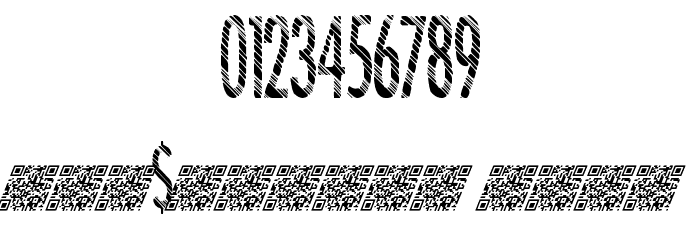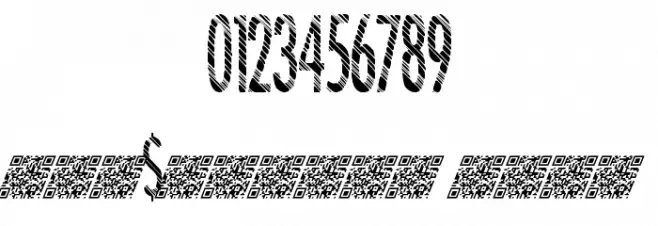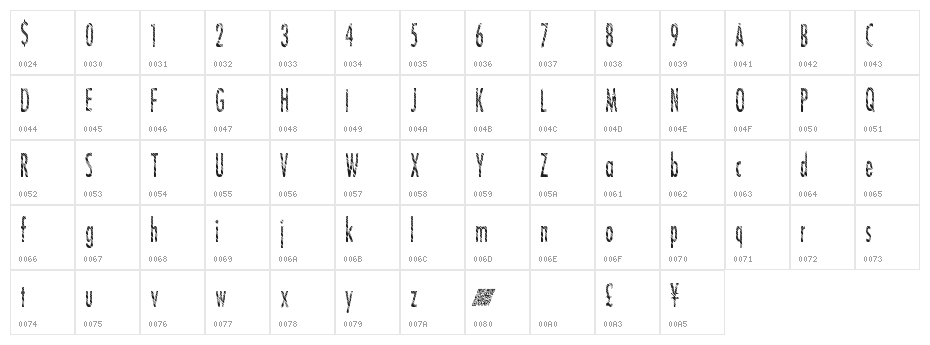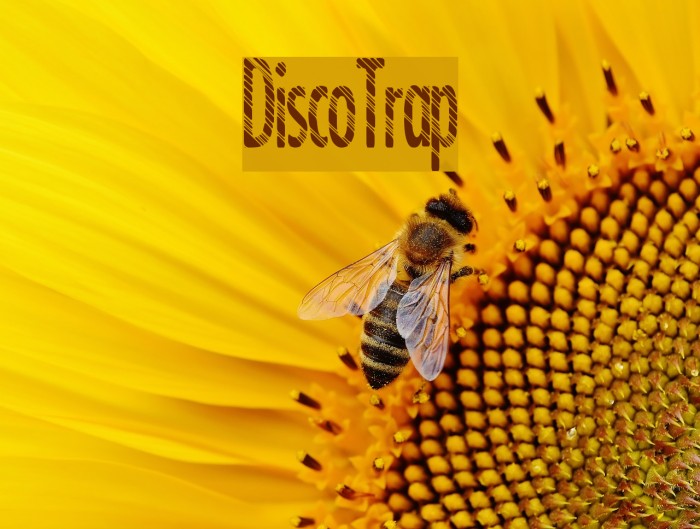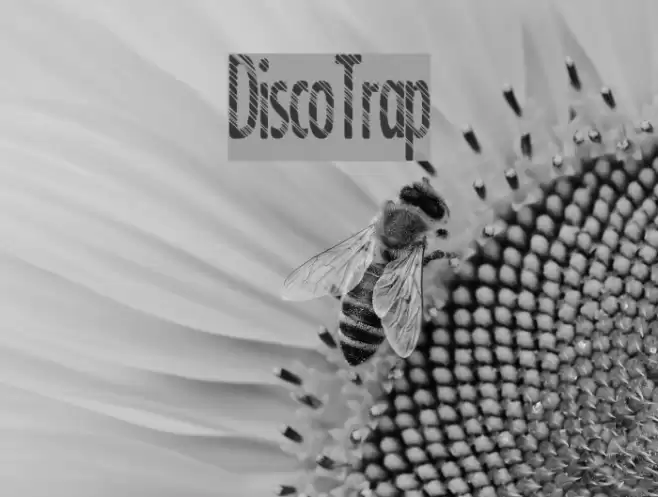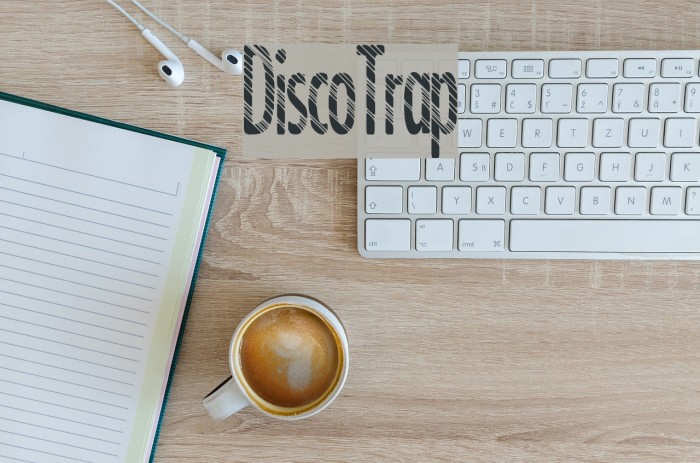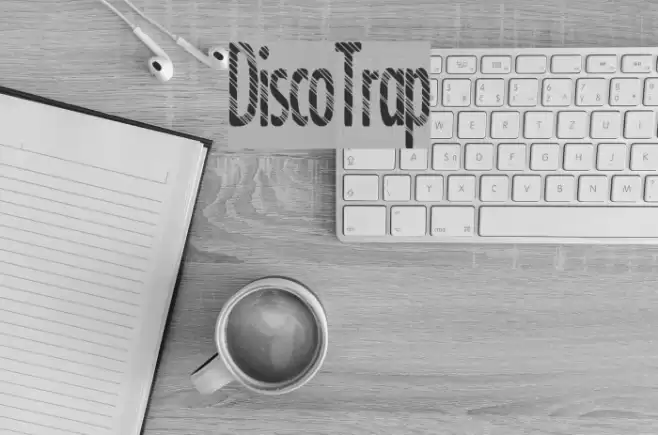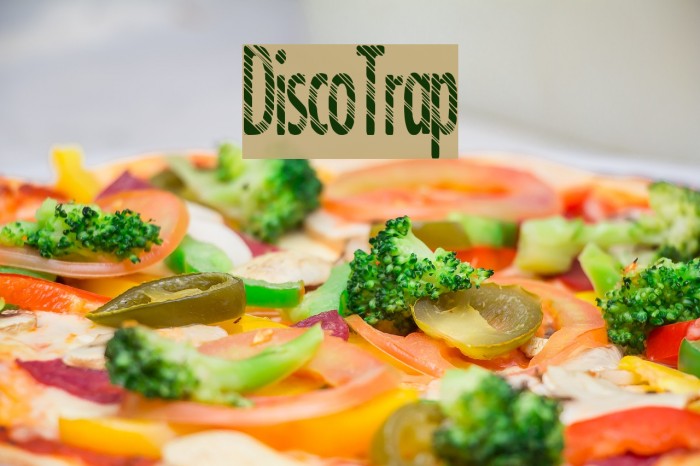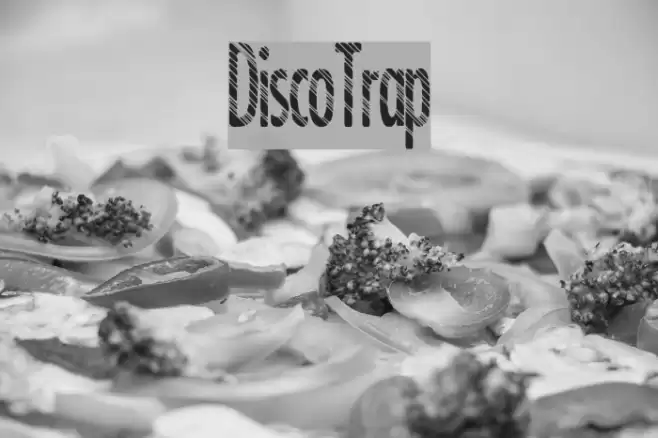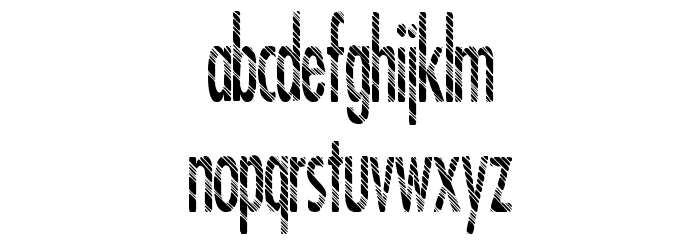
DiscoTrap Font
DiscoTrap Description
This font features a bold, dynamic style with a distinct diagonal line pattern running through each character, creating a sense of movement and energy. The uppercase and lowercase letters maintain a consistent width, giving the font a uniform appearance. The numerals and special characters are designed with the same diagonal pattern, ensuring cohesion across all elements. The font's unique texture and bold presence make it ideal for eye-catching designs.